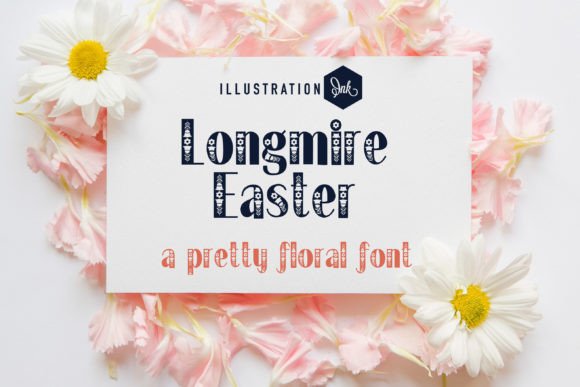
Dive into the whimsical world of Longmire Easter Font, a sans serif masterpiece designed to ignite your creativity and spread Easter joy. Each delicate letter is adorned with intricate floral embellishments, inviting a touch of spring into your designs. Whether you're crafting Easter cards, invitations, or any special project, Longmire Easter brings a delightful charm that will captivate and enchant.
This elegant font family embodies the spirit of Easter with its exquisite detailing. The letters dance together harmoniously, forming a captivating sight that will make your designs bloom with beauty. Whether for personalizing Easter eggs or creating festive decorations, Longmire Easter adds a touch of magic to every stroke.
Immerse yourself in the season's vibrant hues and embrace the warmth of Easter with Longmire Easter Font. Let its enchanting curves and playful flourishes inspire your imagination and evoke the joy of the holiday. Its perfect balance of elegance and whimsy makes it a versatile choice for a wide range of Easter-themed creations.
Prepare to be swept away by the delicate charm of Longmire Easter Font. Its enchanting floral accents will transform your designs into works of art, infusing them with a timeless elegance that will make your Easter celebrations truly memorable.